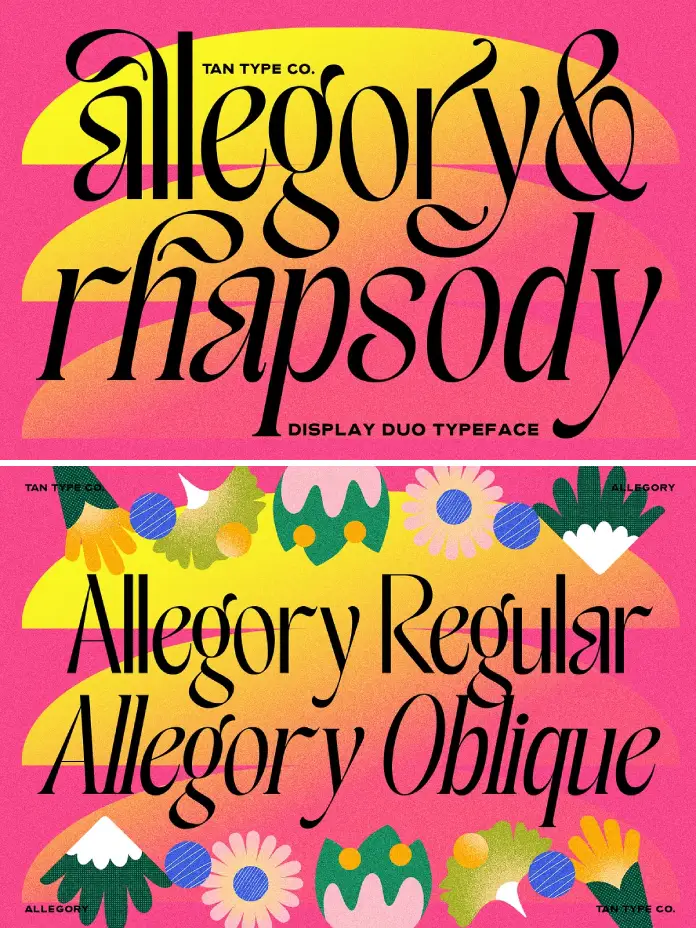
Let’s Talk About How TanType’s Allegory Font Duo Brings Editorial Luxury, Fun, and Quiet Precision to Modern Type Design.
The TAN Allegory font duo pairs a high-contrast editorial serif with a clean, restrained sans serif — and the result feels less like a font release and more like a considered design statement. If you work in branding, editorial, or packaging, this is a pairing worth your full attention.
Honestly, font duos are everywhere. Most promise harmony and deliver compromise. TAN Allegory does something different — it commits to a visual philosophy rather than just a visual match. The serif leads with drama. The sans serif holds the structure. Together, they create a system that works at headline scale and at body size without losing its personality at either end.
So what makes this particular TAN Allegory font duo worth writing about at length? It comes down to specificity. TanType didn’t try to make a typeface for everyone. They made one for designers who know exactly when a typeface is doing the heavy lifting — and when it needs to get out of the way.
What Makes the TAN Allegory Font Duo Different From Other Serif-Sans Pairings?
Most serif-sans pairings rely on optical similarity — same x-height, similar proportions, matching weight distribution. TAN Allegory takes a different approach. It uses intentional contrast as its pairing logic. The serif is expressive and dramatic. The sans is functional and neutral. That tension is the whole point.
The serif component — Allegory Regular and Allegory Oblique — carries heavy design intention in every detail. Its high contrast axis creates sharp transitions between thick strokes and hairline-thin connections. The terminals are crisp rather than rounded, giving the letterforms a sense of precision that keeps the expressiveness from tipping into decorative excess. Meanwhile, the flowing swashes and elegant alternates add a layer of editorial luxury that feels specific to print-influenced design language.
This is what I’d call the Tension-Led Pairing Principle: the idea that a font duo performs best not when both typefaces agree with each other, but when they each hold their ground independently. Allegory’s serif doesn’t soften itself to accommodate the sans. The sans doesn’t try to match the serif’s drama. Instead, each plays its own role clearly — and the system benefits from that clarity.
For designers working in competitive visual categories like luxury branding or premium packaging, this matters. A pairing that blurs its own internal contrast ends up blurring the hierarchy of your layout too. TAN Allegory keeps both voices distinct while keeping them in conversation.
The Allegory Serif: High Contrast, Sharp Terminals, Graceful Rhythm
Look at the serif in isolation, and you notice several things immediately. The stroke contrast is high — substantially higher than most editorial serifs in the contemporary market. The thick strokes are full and confident. The thin strokes are almost delicate. That range creates a typeface that reads as both bold and refined simultaneously, which is a difficult effect to achieve without tipping into either excess or weakness.
The sharp terminals deserve particular attention. Where many contemporary serifs soften their endings to feel approachable and digital-friendly, Allegory keeps them crisp. This is a deliberate choice. Crisp terminals read as intentional. They carry an editorial confidence that rounded, friendly terminals simply cannot replicate. When you set Allegory at display sizes — magazine covers, packaging headers, brand wordmarks — those terminals assert themselves as design decisions rather than defaults.
The graceful rhythm of the letterforms also deserves notice. This is a serif with genuine calligraphic roots. The spacing feels considered rather than mechanical. Letters breathe. The ligatures and alternates — included in both the Regular and Oblique cuts — allow for further customization without introducing visual inconsistency. A good ligature set is a quiet luxury that most readers never consciously notice but always feel.
The Oblique cut functions as a modern companion to the Regular rather than a simple slanted version. It carries its own character, which makes it genuinely useful for emphasis and hierarchy rather than just conventional italic applications.
The Sans Serif: Grounded, Versatile, Intentionally Quiet
The sans component of the TAN Allegory font duo is where restraint becomes a design virtue. It’s clean without being cold. It carries no flourish, no personality-driven quirks, no design decisions that would compete with the serif for visual attention. That’s exactly what it needs to be.
A sans serif in a duo exists primarily to serve the system. Its job is to provide readability at sizes and contexts where the serif would overwhelm or overcomplicate. Caption text. Body copy. Interface labels in editorial digital contexts. The Allegory sans handles all of these comfortably without drawing attention to itself — and without looking generic.
The proportions of the sans align well enough with the serif that both can share a layout without visual tension. But they remain distinct enough that readers immediately understand the typographic hierarchy. This is harder to achieve than it sounds. Many duos collapse this relationship and produce pairings where both typefaces feel interchangeable. TAN Allegory maintains the distinction.
From a practical production standpoint, the clean geometric structure of the sans also means it holds its quality across output types — screen, print, and large format. For designers working across packaging and social content simultaneously, that versatility is genuinely valuable.
The Dual Personality Framework: How TAN Allegory Balances Personality and Function
There’s a concept worth naming here — call it the Dual Personality Framework. It describes typeface systems that carry two distinct visual registers simultaneously: one expressive, one functional. The expressive register handles communication that requires emotional weight or aesthetic identity. The functional register handles communication that requires clarity and legibility above all else.
Most design briefs require both. A luxury brand needs to feel beautiful and be readable. A magazine needs to be visually distinctive and informationally clear. A packaging label needs to attract and inform. The TAN Allegory font duo addresses this split directly by assigning each register to a typeface with a clear mandate.
This framework is why TAN Allegory works particularly well for:
- Brand identity and logo design — the serif drives visual identity while the sans handles supporting type at smaller scales
- Editorial layout and magazine design — headline serif creates impact, sans handles body copy and captions without friction
- Premium packaging design — high-contrast serif commands shelf presence, sans keeps ingredient and technical copy readable
- Social media graphics — the contrast between the two styles creates visual dynamism that works at small screen sizes
- Invitations and event materials — the oblique cut of the serif adds ceremony; the sans anchors dates and logistics
This isn’t an arbitrary use case list. Each application maps directly to the typographic logic built into the duo’s design. The pairing wasn’t assembled — it was engineered with these contexts in mind.
TAN Allegory in Branding: Why High-Contrast Serifs Are Having a Moment
The broader design culture is relevant here. High-contrast serifs are experiencing a genuine resurgence in brand identity work — and it’s not a trend built on nostalgia. It’s a response to a specific visual fatigue.
The decade of geometric sans dominance in branding — clean, neutral, optimized for digital — has produced a market saturated with typefaces that communicate little beyond functional modernity. Brands that want to differentiate now look toward type choices that carry more intrinsic personality. High-contrast serifs deliver that personality clearly.
What makes this current resurgence distinct from earlier serif revivals is the context. Today’s high-contrast serifs — and TAN Allegory fits this description — are designed with digital output in mind alongside print. They perform at screen resolution. They hold their contrast at small sizes. They work in motion graphics and video titles. Earlier editorial serifs were optimized for print alone and suffer in digital contexts as a result.
The TAN Allegory font duo sits squarely in this contemporary approach. Its details — the terminal crispness, the swash design, the oblique construction — all show awareness of how the typeface will actually be used across modern design workflows.
For branding designers, this is an important distinction. A typeface that looks extraordinary in a pitch deck but degrades on a website header is a liability, not an asset. TAN Allegory avoids that liability.
Using the Allegory Oblique: When the Slant Becomes a Statement
The Oblique cut is worth its own moment of attention. Oblique typefaces in the serif category tend to fall into one of two categories: mechanical slants that retain all the characteristics of the upright, or genuine drawn italics with their own letterform construction. Allegory Oblique functions closer to the latter in spirit — it carries a distinct character rather than simply tilting the Regular.
This makes it genuinely versatile as an expressive tool. Use it as you would use an italic in traditional editorial typography — for emphasis, pull quotes, captions, and secondary headlines. But also consider it as a standalone display choice. Set in isolation, the Oblique carries enough personality to function as a primary headline style without the Regular present at all.
For social media content creators and brand designers working in visual formats where variety matters quickly, having two distinct expressions within the serif alone — before you even reach for the sans — is a significant practical advantage. The elegant alternates and ligatures available in both cuts extend this flexibility further.
The Romance and Precision Spectrum: Where TAN Allegory Sits Stylistically
It helps to have a mental model for placing typefaces on stylistic axes. One useful axis runs from romance to precision — from expressive, fluid, calligraphically-influenced letterforms at one end, to geometric, constructed, systematically rigorous letterforms at the other.
Most contemporary editorial serifs cluster in the mid-range — they borrow enough calligraphic energy to feel warm, but enough geometric structure to feel contemporary. TAN Allegory’s serif component is positioned further toward the romance end than most of its peers. The swashes, the flowing rhythm, the dramatic contrast — all of these push it firmly into the expressive zone.
The sans counterpart, by contrast, sits comfortably at the precision end. It’s constructed, not calligraphic. It’s systematic, not expressive. The full duo therefore spans an unusually wide range of this axis, which is why it works so well for contexts requiring both warmth and clarity simultaneously.
This is what I call the Full-Spectrum Pairing Theory: the idea that the most versatile font duos cover the maximum possible range of the romance-precision axis, rather than clustering two similar typefaces in the same zone. TAN Allegory is a textbook example of this principle in practice.
Multilingual Support and Technical Specifications Worth Knowing
From a technical standpoint, TAN Allegory comes equipped for professional production work. Both OTF and TTF formats are included, which means it slots directly into professional design environments like Adobe InDesign, Illustrator, and Photoshop, as well as web design tools and digital production workflows.
The multilingual support is a production-level feature that often goes underappreciated in type reviews. For designers working in international markets — or for studios and agencies handling multilingual brand systems — this removes a significant constraint. The expressive quality of the serif doesn’t have to disappear when the brief requires extended Latin characters or diacritical marks.
The inclusion of elegant alternates and ligatures in both the Regular and Oblique cuts also deserves practical emphasis. Alternates give designers the ability to customize letterform combinations that would otherwise produce awkward visual rhythms. Ligatures reduce friction between letter pairs that would otherwise clash. Together, these features make the typeface behave more like a custom type solution than an off-the-shelf purchase.
For designers building comprehensive brand systems — not just setting a headline — these features matter enormously. They’re the difference between a typeface that works and a typeface that works for you.
Who Should Buy TAN Allegory — And Who Shouldn’t
Honesty here is more valuable than enthusiasm. TAN Allegory is a specific typeface designed for a specific design sensibility. It’s not for everyone — and knowing that sharpens the recommendation.
Buy TAN Allegory if your work regularly involves visual contexts where expressive type makes a meaningful contribution — luxury branding, high-end packaging, editorial design, premium event collateral, or social content where visual identity carries commercial weight. Buy it if your clients expect type choices that signal taste and intentionality rather than neutrality. Buy it if you’re building a brand system that needs to sustain visual character across a wide range of applications.
Consider carefully if your primary output is utilitarian — technical documentation, functional interfaces, information-dense reports. TAN Allegory’s serif is not designed for extended body text. It’s a display and headline serif first. The sans provides functional support, but the full duo earns its purchase price in expressive contexts, not functional ones.
Also consider your audience. The serif’s stylistic character — romantic, editorial, luxury-adjacent — works beautifully for certain brand personalities and creates genuine dissonance for others. A fintech startup probably needs a different type system. A botanical skincare brand, a fine dining restaurant, a fashion editorial, a wedding stationery studio — these are TAN Allegory’s natural environments.
Forward-Looking: Where This Typeface Style Is Heading
Here’s a prediction worth putting on record. The high-contrast editorial serif category is moving toward greater stylistic diversity within individual families — more weights, more expressive variation, more digital-native variants designed for specific output contexts. TAN Allegory’s current form — two serif styles and a clean sans — represents one particularly coherent snapshot of where this category is right now.
As AI-generated design assets flood the mid-market, the premium on specificity in type design increases. Typefaces that feel generic — that could have been produced by an algorithm optimizing for average aesthetic preferences — will lose their commercial value rapidly. Typefaces that carry genuine design intelligence and stylistic commitment — like TAN Allegory — will hold and likely increase in value as differentiators.
This is the Specificity Premium Hypothesis: as design tool access democratizes further, the typefaces that survive as premium choices are those whose personality is too particular, too considered, and too specific to be replicated by generalized systems. TAN Allegory is positioned well for this shift.
The font duo format itself — a matched pair designed as a system rather than two separate purchases — is also gaining recognition as a design deliverable rather than just a sales mechanism. Designers increasingly understand that the relationship between typefaces matters as much as the quality of each one in isolation. TAN Allegory demonstrates that relationship clearly.
My Personal Take: What This Font Duo Gets Right That Others Miss
I’ve spent a lot of time with font duos over the years. Most of them hedge. They aim for maximum applicability by minimizing stylistic commitment. The result is typefaces that are technically compatible but emotionally inert — pairings that work without doing anything memorable.
TAN Allegory makes a different choice. It commits. The serif has a clear personality and doesn’t apologize for it. The sans knows its role and plays it without overreaching. The relationship between them is defined by purpose rather than similarity, and that purpose-driven design logic shows in how the duo actually performs in layout.
What I find most admirable is the oblique. TanType could have included a straightforward slanted version and called it an italic. Instead, the Oblique carries its own construction logic and its own expressive character. That decision adds real value to the system. It says that the designers were thinking about how the typeface would actually be used in complex multi-style layouts rather than just what would photograph well in a specimen sheet.
If I were building a brand system for a premium lifestyle client right now, TAN Allegory would be in serious contention. It has the expressive range to carry visual identity work and the structural discipline to support it with readable, functional type. That combination is rarer than the market currently recognizes.
Frequently Asked Questions About the TAN Allegory Font Duo
What is the TAN Allegory font duo?
The TAN Allegory font duo is a matched typeface system by TanType that pairs a high-contrast display serif with a clean, functional sans serif. It includes Allegory Regular, Allegory Oblique, and a companion sans serif, all designed to work together as a complete typographic system for branding, editorial, and packaging design.
What file formats does TAN Allegory include?
TAN Allegory comes in both OTF (OpenType) and TTF (TrueType) formats, making it compatible with the full range of professional design software, including Adobe Creative Cloud applications, Figma, Sketch, and web-based tools. Both formats support the full character set, including alternates, ligatures, and multilingual characters.
Is TAN Allegory suitable for body text?
TAN Allegory’s serif is primarily a display and headline typeface. Its high stroke contrast and expressive character work best at larger sizes, where the details read clearly. The sans serif companion performs well at smaller sizes for captions, subheadings, and supporting copy. For extended body text at small sizes, the duo is best used with a third typeface chosen specifically for legibility at text scale.
What design styles suit TAN Allegory best?
TAN Allegory works best in visual contexts where expressive type contributes meaningfully to the overall aesthetic — luxury branding, premium packaging, high-fashion editorial, fine dining identity, wedding and event collateral, and sophisticated social media content. Its stylistic character is editorial and romantic, which aligns with brand personalities in the premium lifestyle, beauty, hospitality, and fashion sectors.
What is the difference between Allegory Regular and Allegory Oblique?
Allegory Regular is the upright serif cut, designed for display headlines and primary brand typography. Allegory Oblique is a companion italic-style cut that carries its own distinct letterform construction rather than being a simple mechanical slant of the Regular. Both cuts include elegant alternates and ligatures, making them individually versatile and functionally distinct within the same typographic system.
Does TAN Allegory support multiple languages?
Yes. TAN Allegory includes multilingual support across extended Latin character sets, making it suitable for professional projects in multiple languages across European and Western markets. This extends the usability of the typeface for international branding and publishing projects without requiring a substitute typeface for non-English content.
How does TAN Allegory compare to other premium font duos on the market?
TAN Allegory distinguishes itself through its deliberate use of stylistic contrast as a pairing principle. Rather than matching two similar typefaces for visual cohesion, it pairs a highly expressive serif with a deliberately restrained sans. This tension-led approach creates a broader usable range within the duo and produces a stronger visual hierarchy in complex layouts. The inclusion of a genuinely distinct Oblique cut — rather than a slanted version of the Regular — adds further depth that many comparable font duos don’t offer.